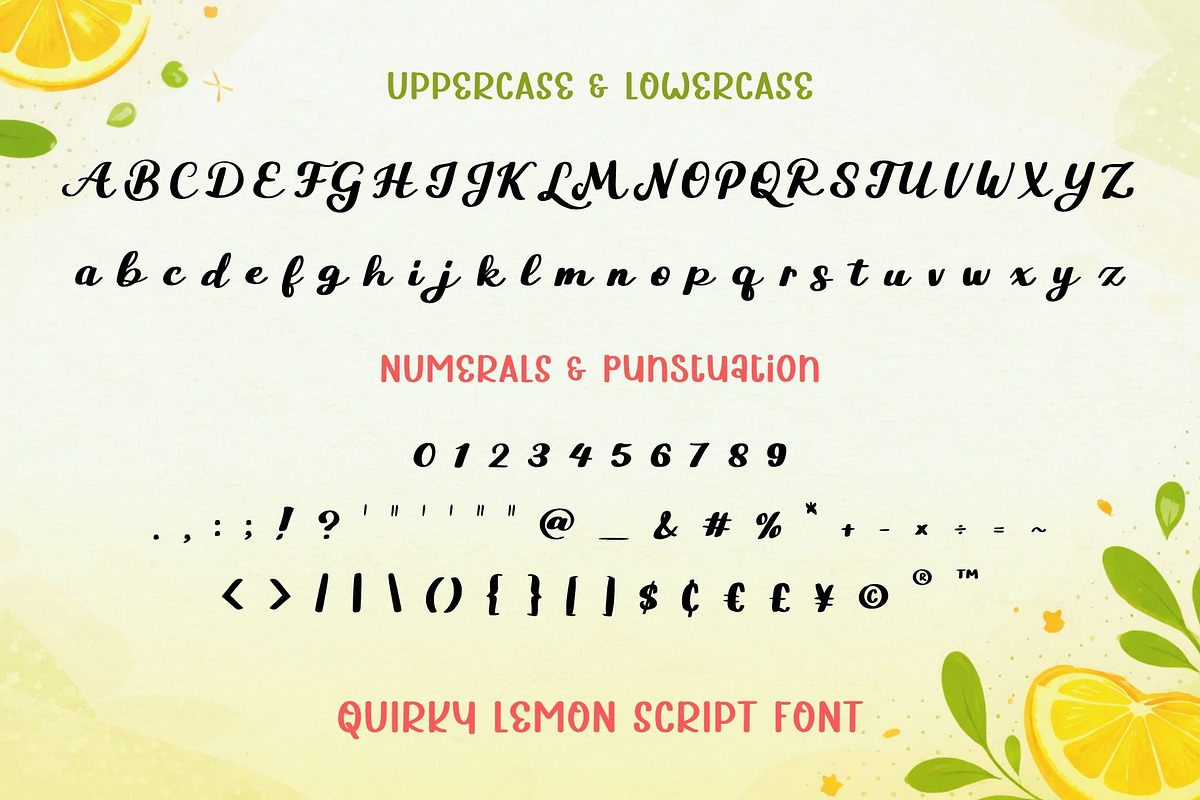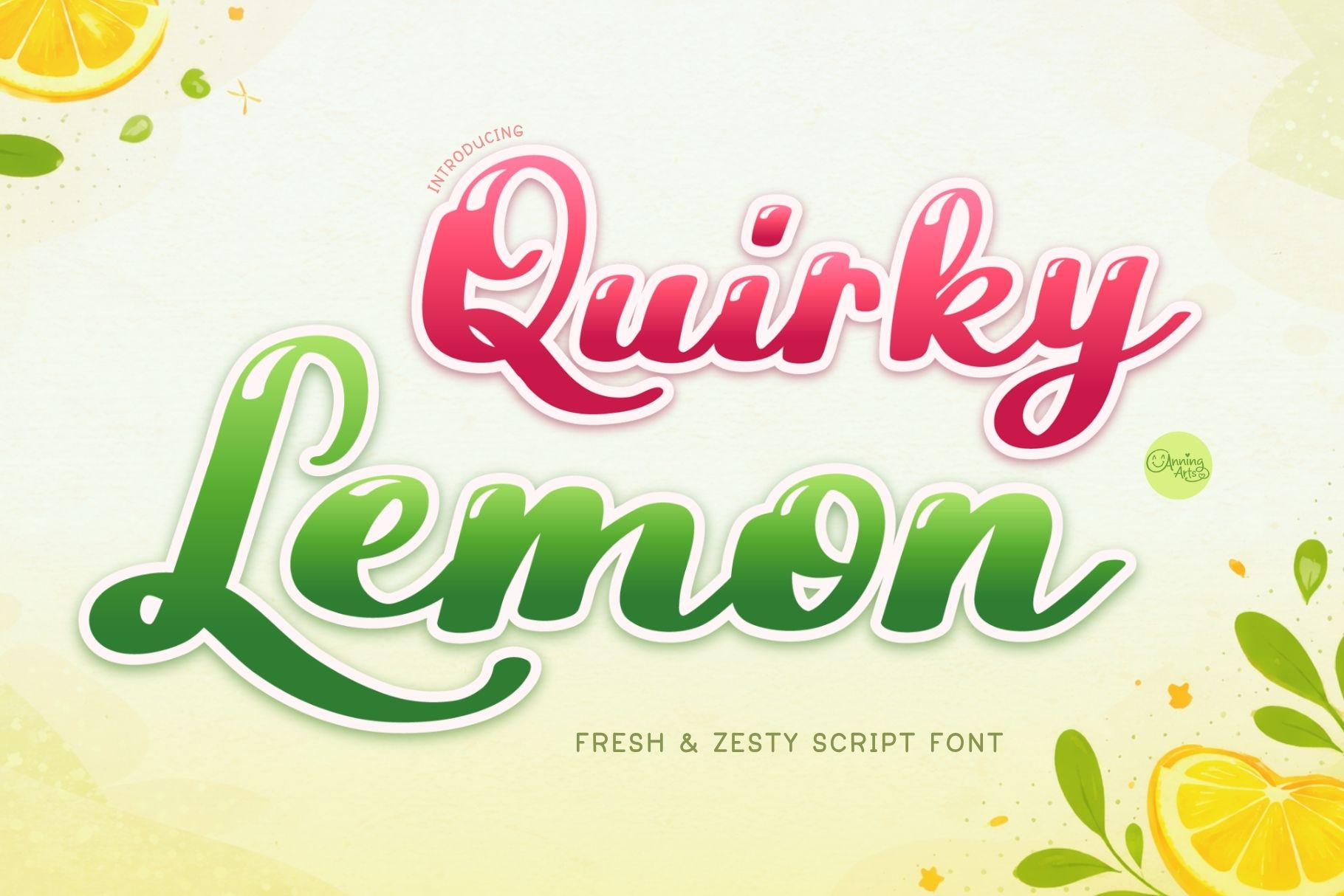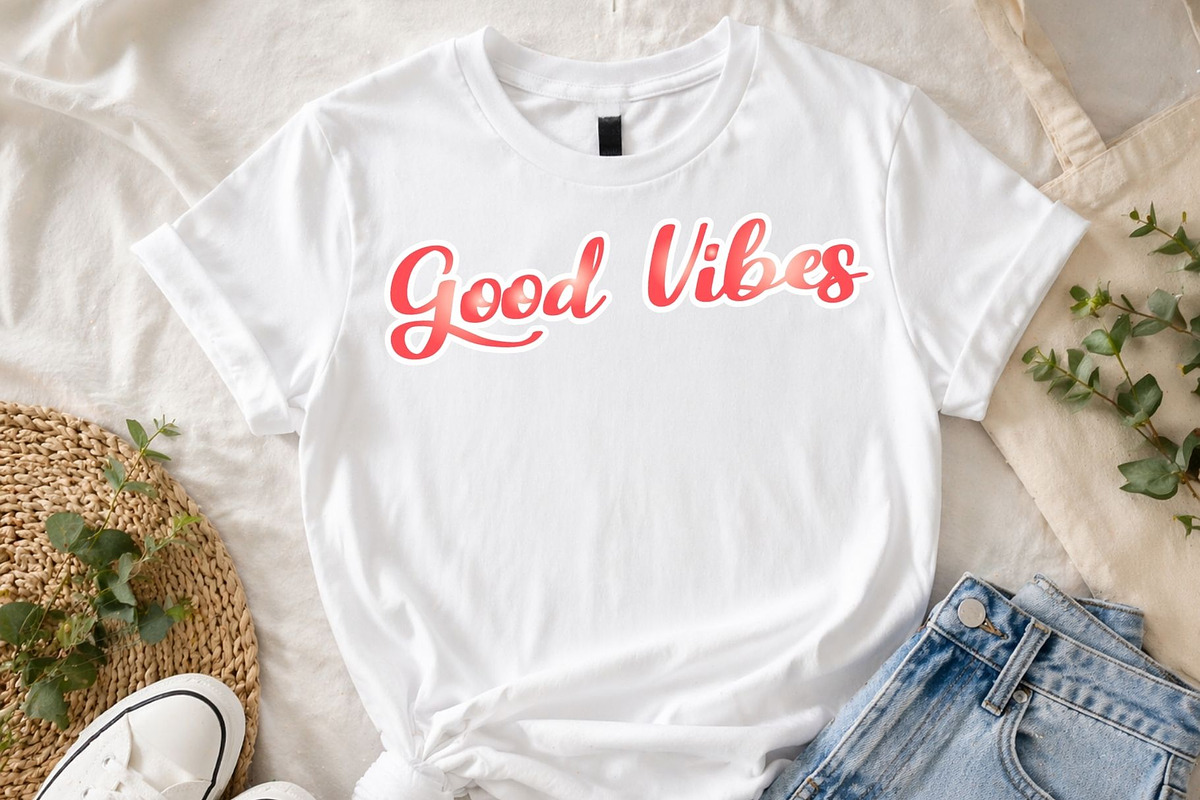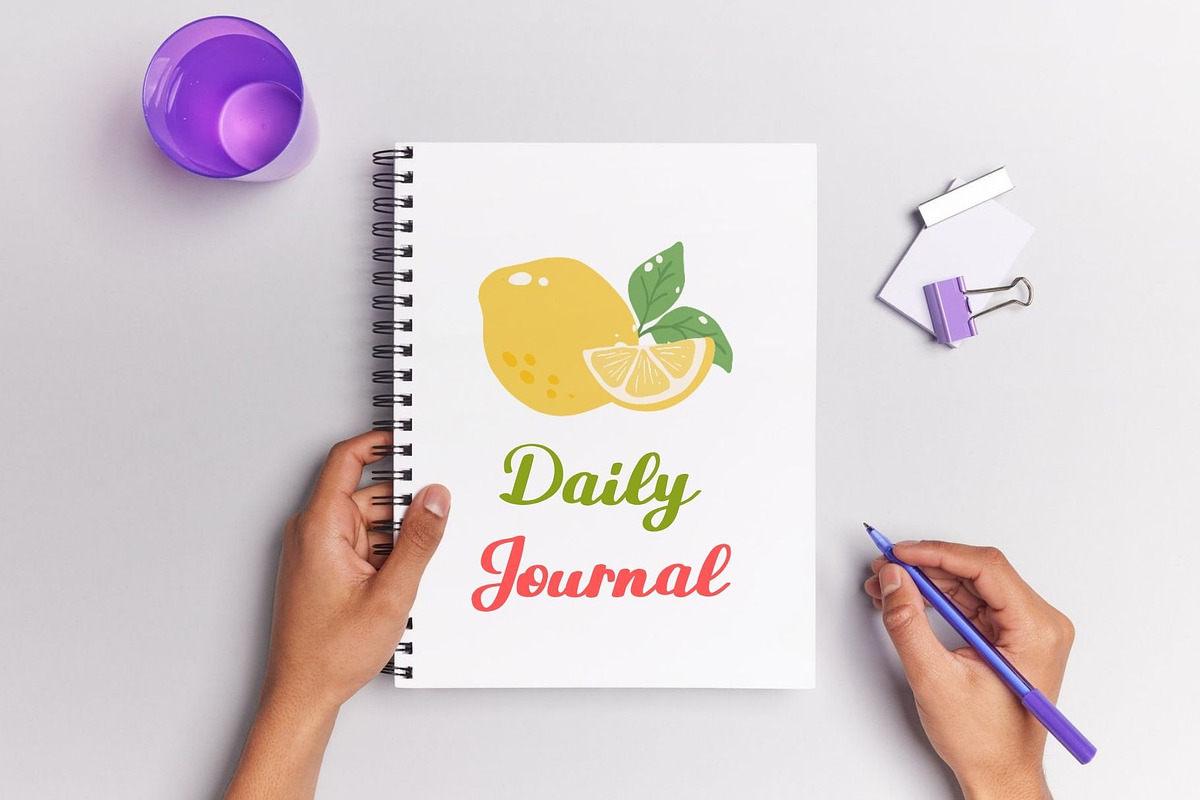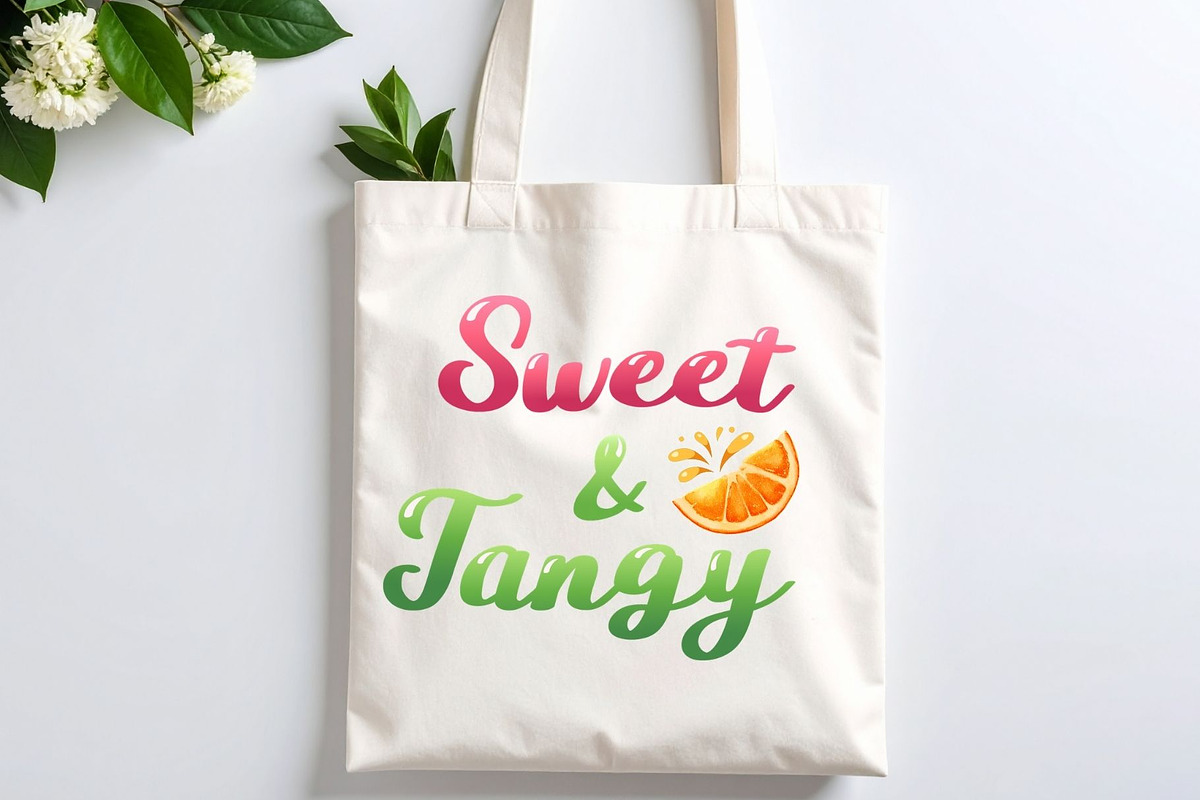
Quirky Lemon - Playful Script Font
Quirky Lemon, a playful and juicy handwritten script font inspired by the sweet and tangy vibe of summer citrus.
This font features smooth curves, bold strokes, and a lively personality that makes every word feel fun, bright, and full of energy. With its unique balance of quirky charm and clean readability, Quirky Lemon is perfect for both casual and creative projects.
Whether you're designing for print or digital use, this font delivers a cheerful and refreshing look that instantly stands out.